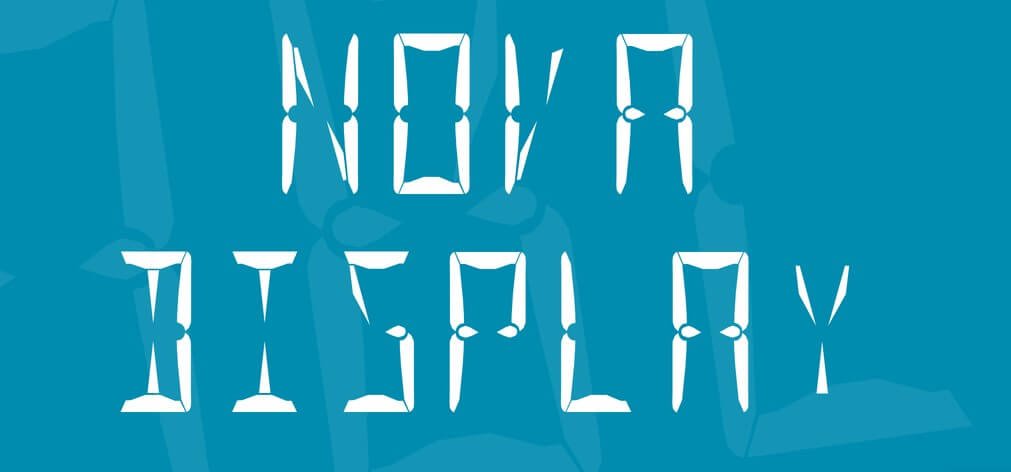
This is first-rate in your assignment that definitely glads your clients. Due to clean characters and handsome appearance, designers simply love the creativity of it. Download and use it everywhere.
It has handy in two styles together with regular and bold. Each of those styles has Truetype formats collectively with 267 glyphs. It looks like a sanskrit font consists of ambitious, greater ambitious, extremely-ambitious and condensed.
This typeface is without issue readable even if using small font sizes, or while displayed on low-resolution displays. This makes this font a brilliant reveal font.
For folks that are seeking out an HTML font with exquisite clarity, you ought to try this typeface. Similarly, these styles have 2048 gadgets in line with em with the big multilanguage resources.
Its sloped kind is a “proper italic” with handwriting affects, that is normal in today’s sans-serif typefaces. It incorporates a body, formidable and light patterns. you can use this font in any adobe or photoshop products.
as some distance as I had searched for the font is similar to connection font the maximum strong and suitable font for plenty of designing initiatives.